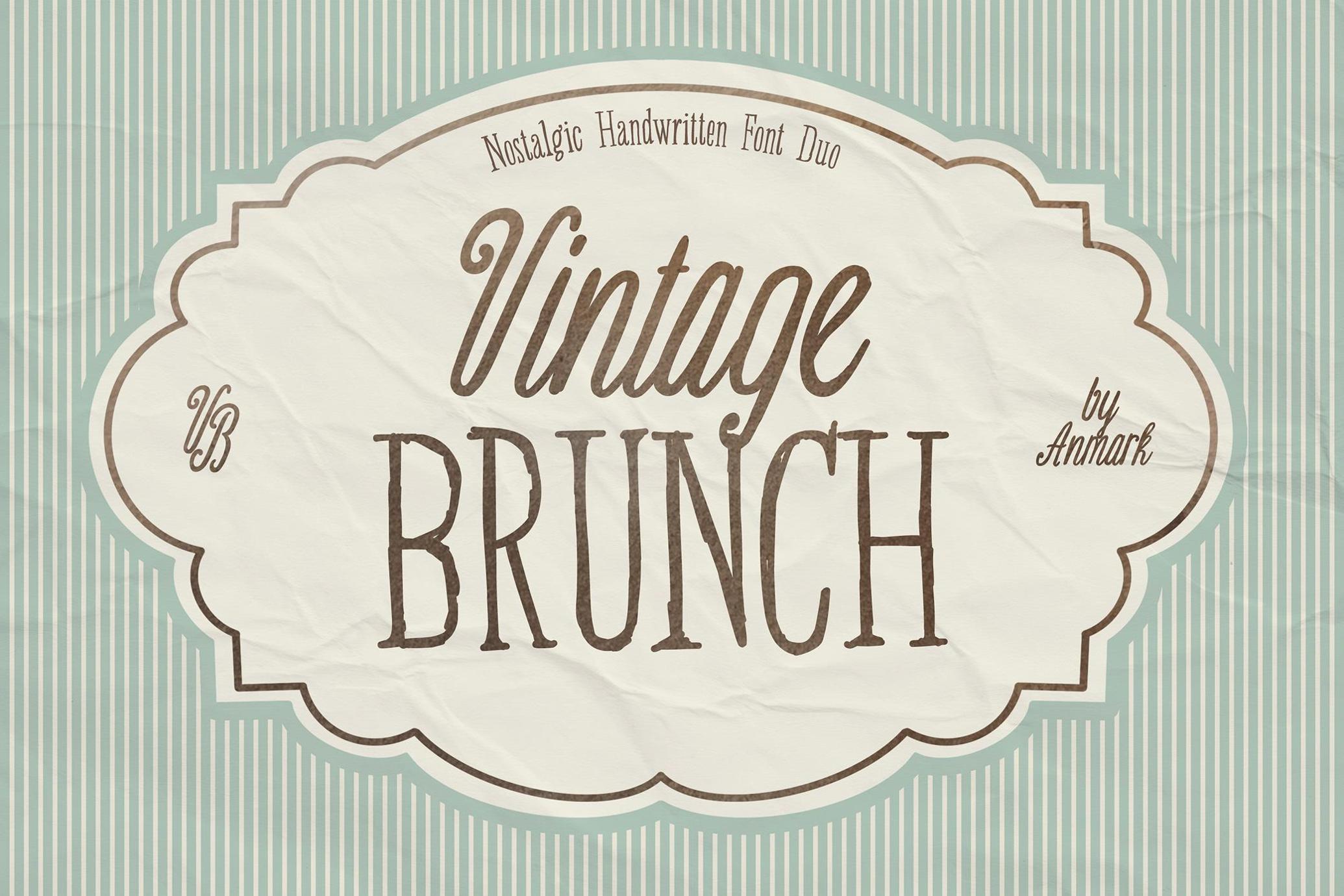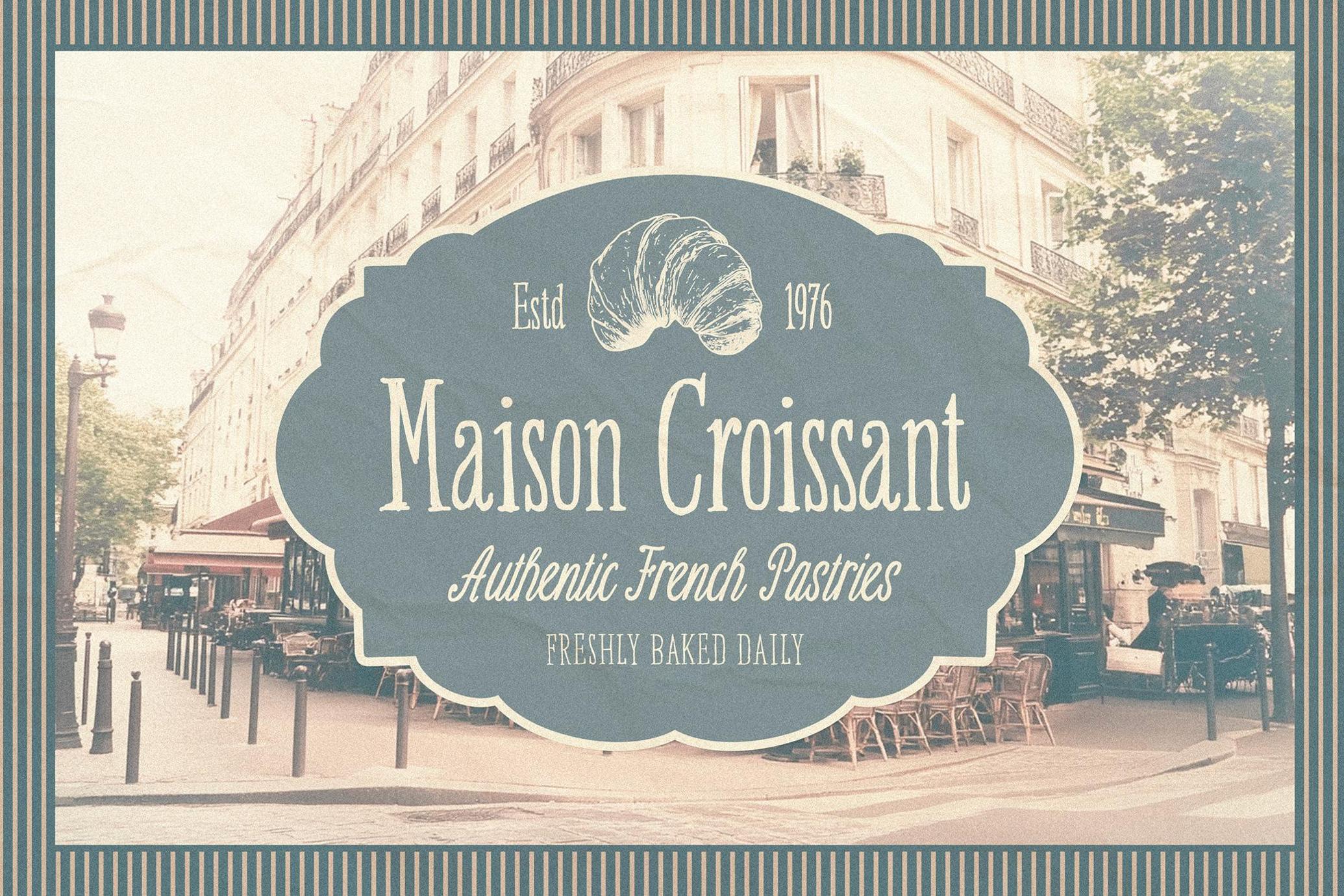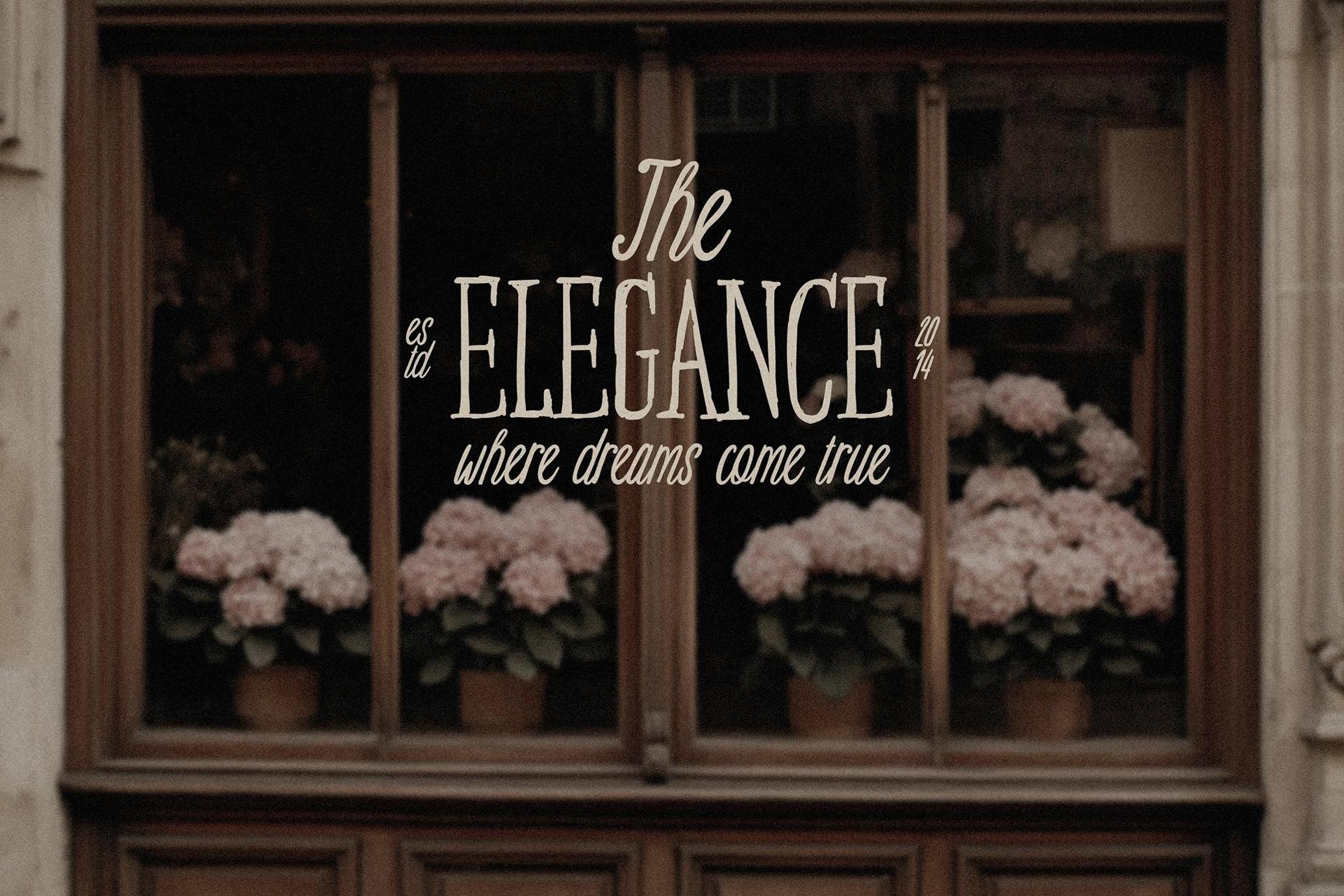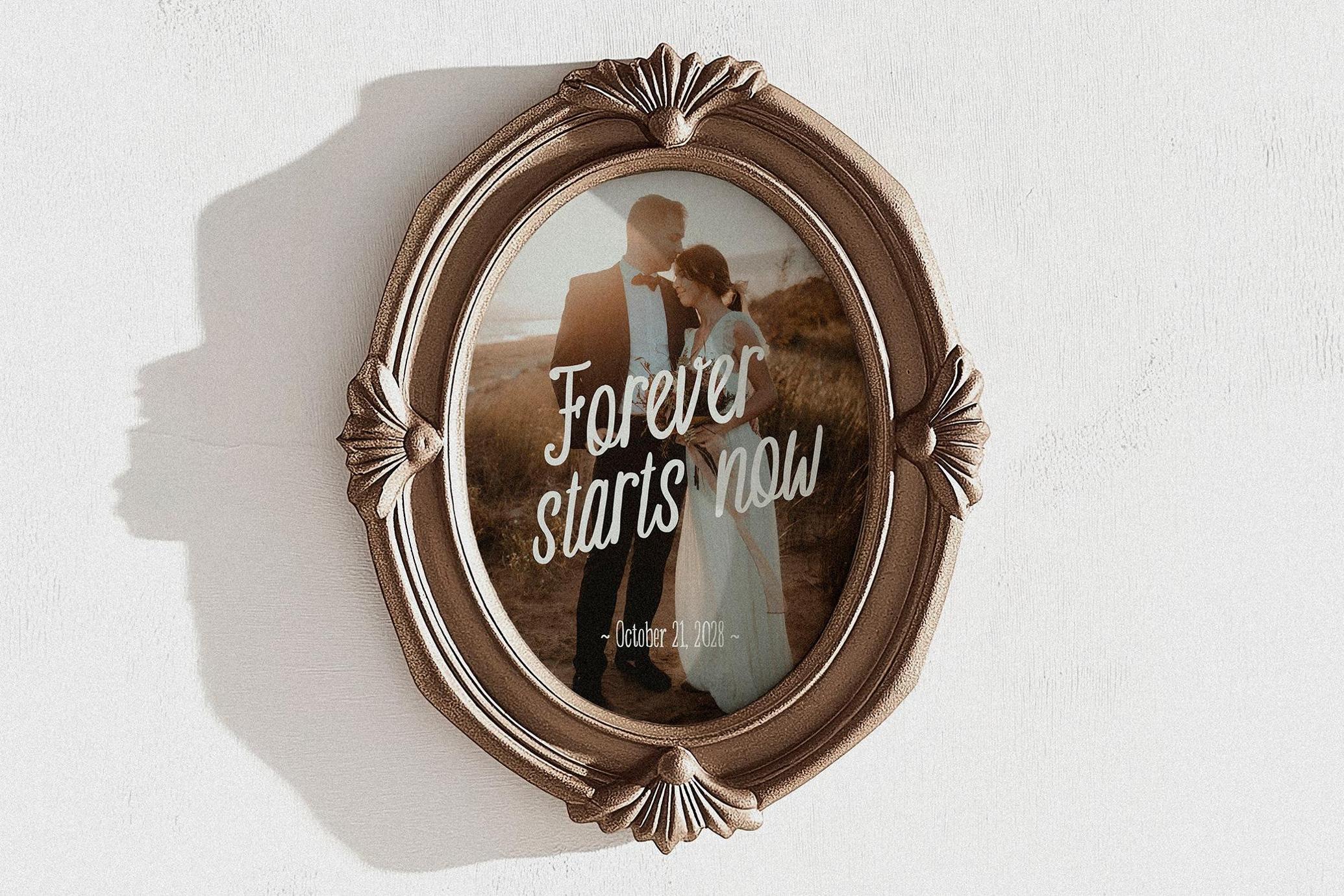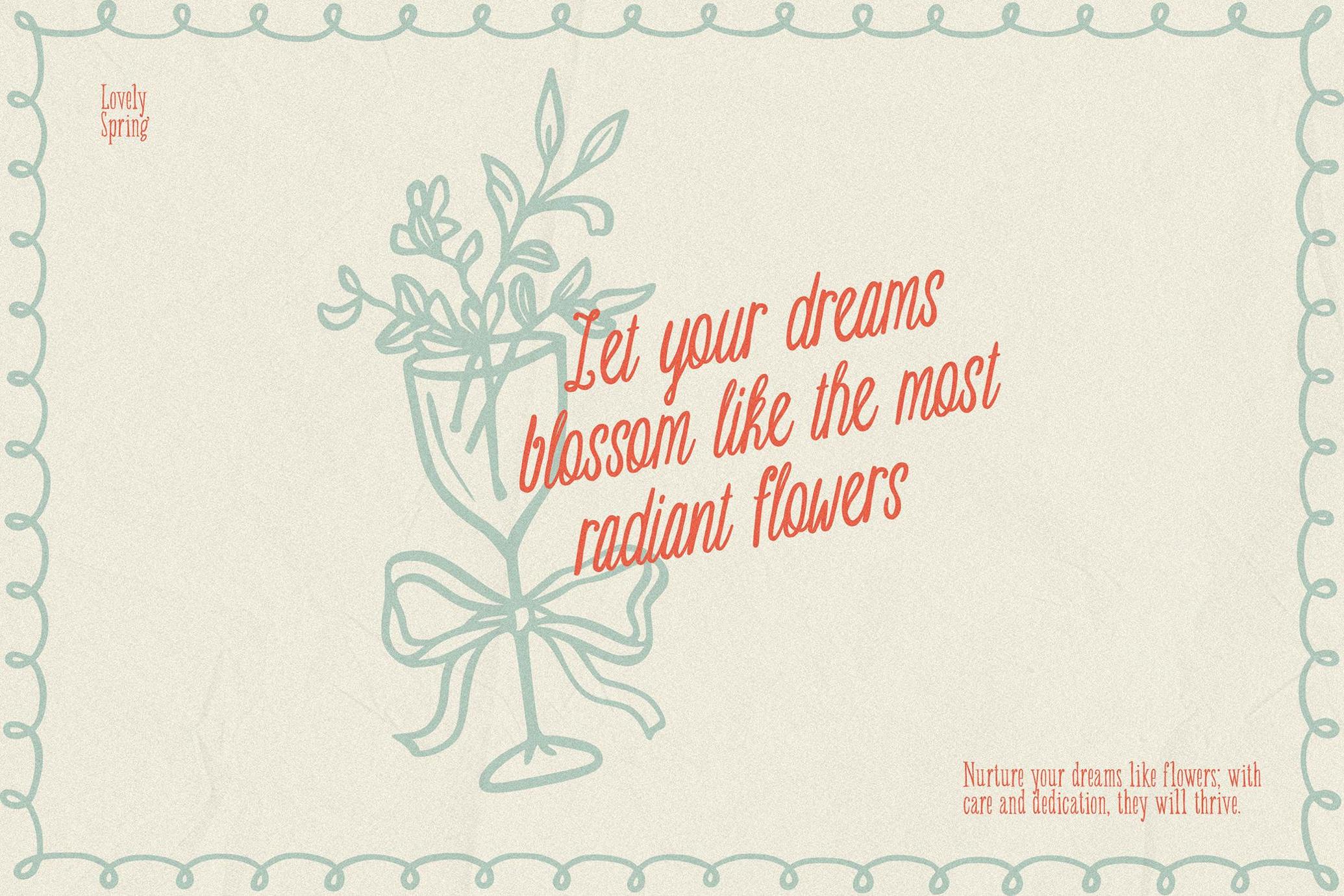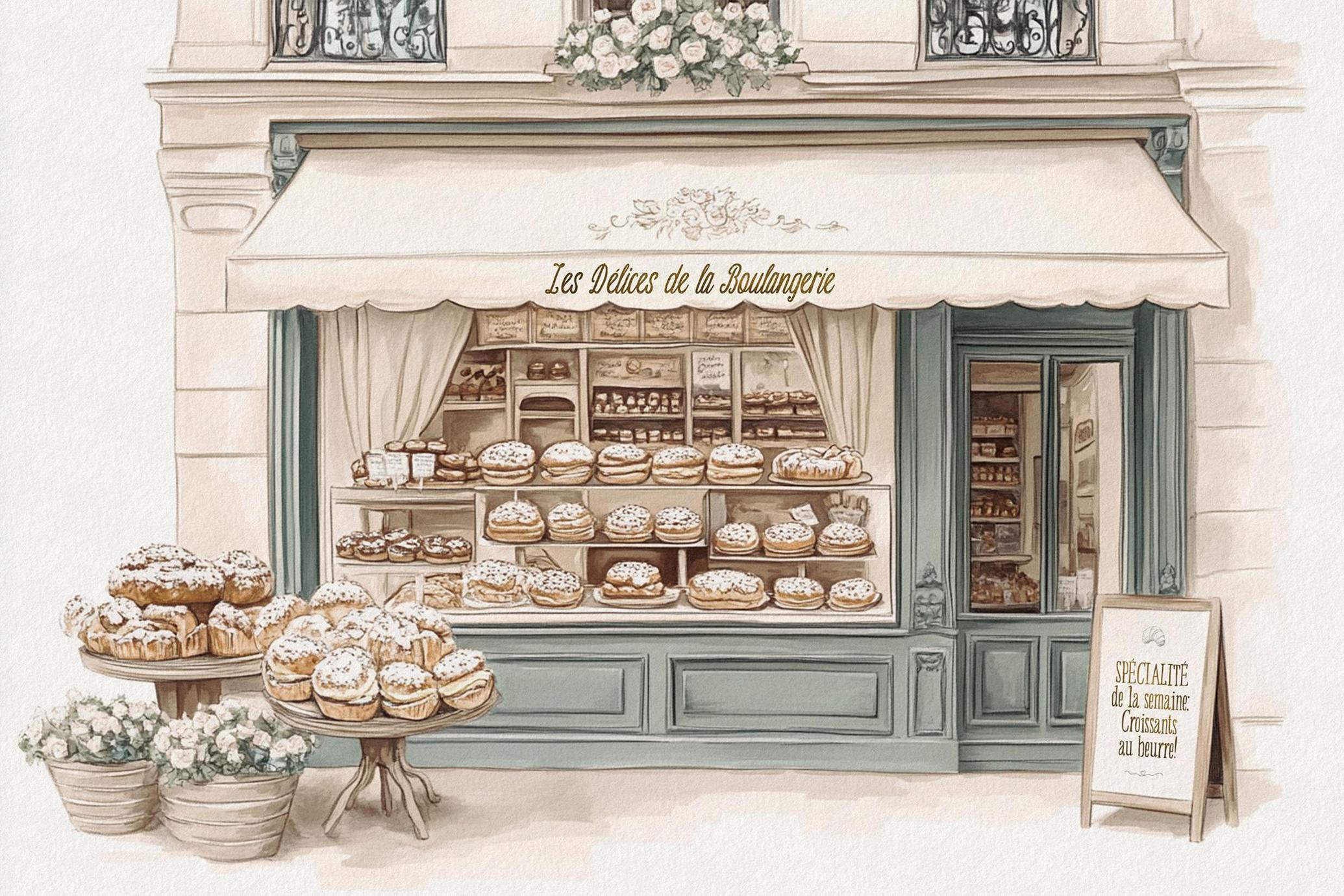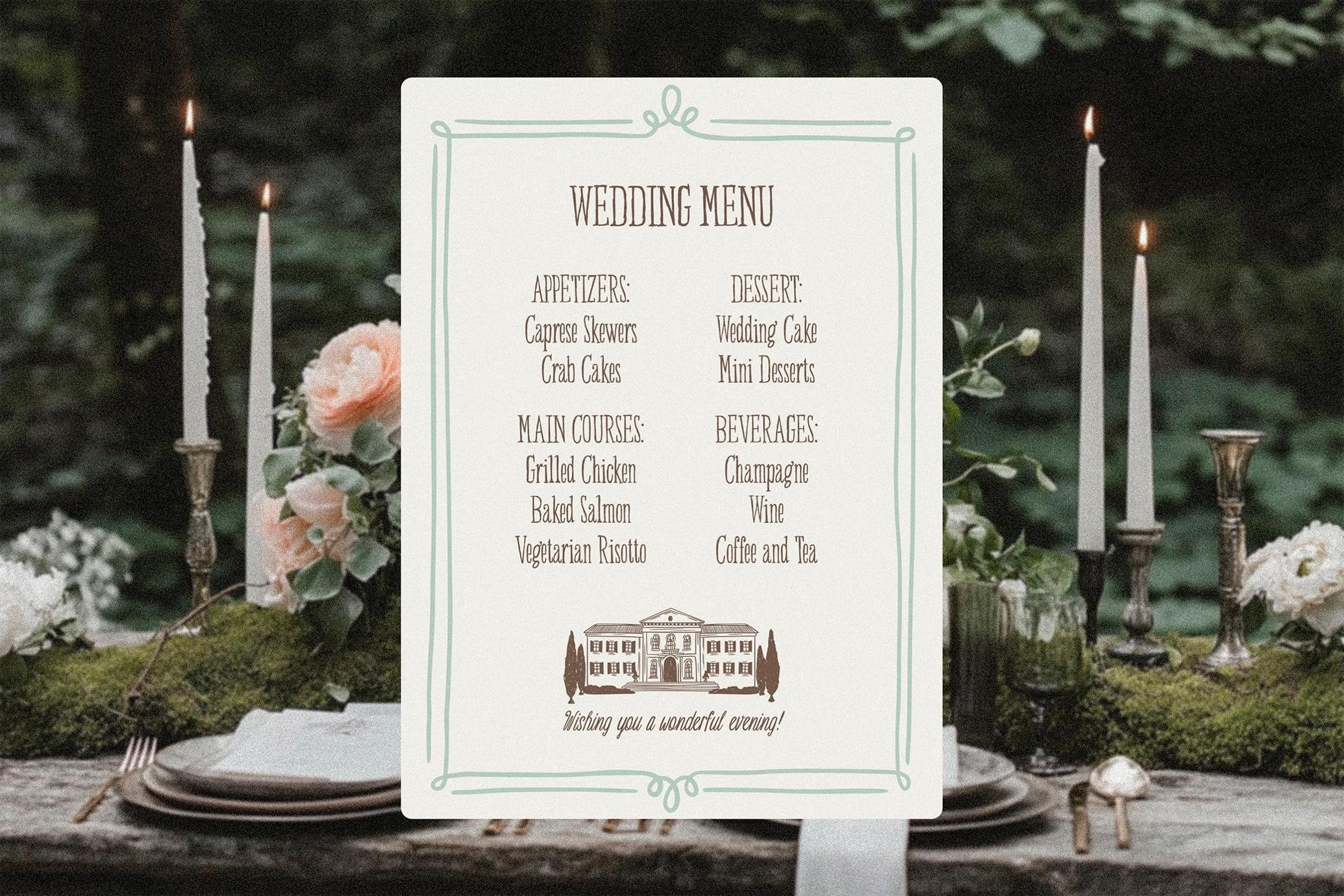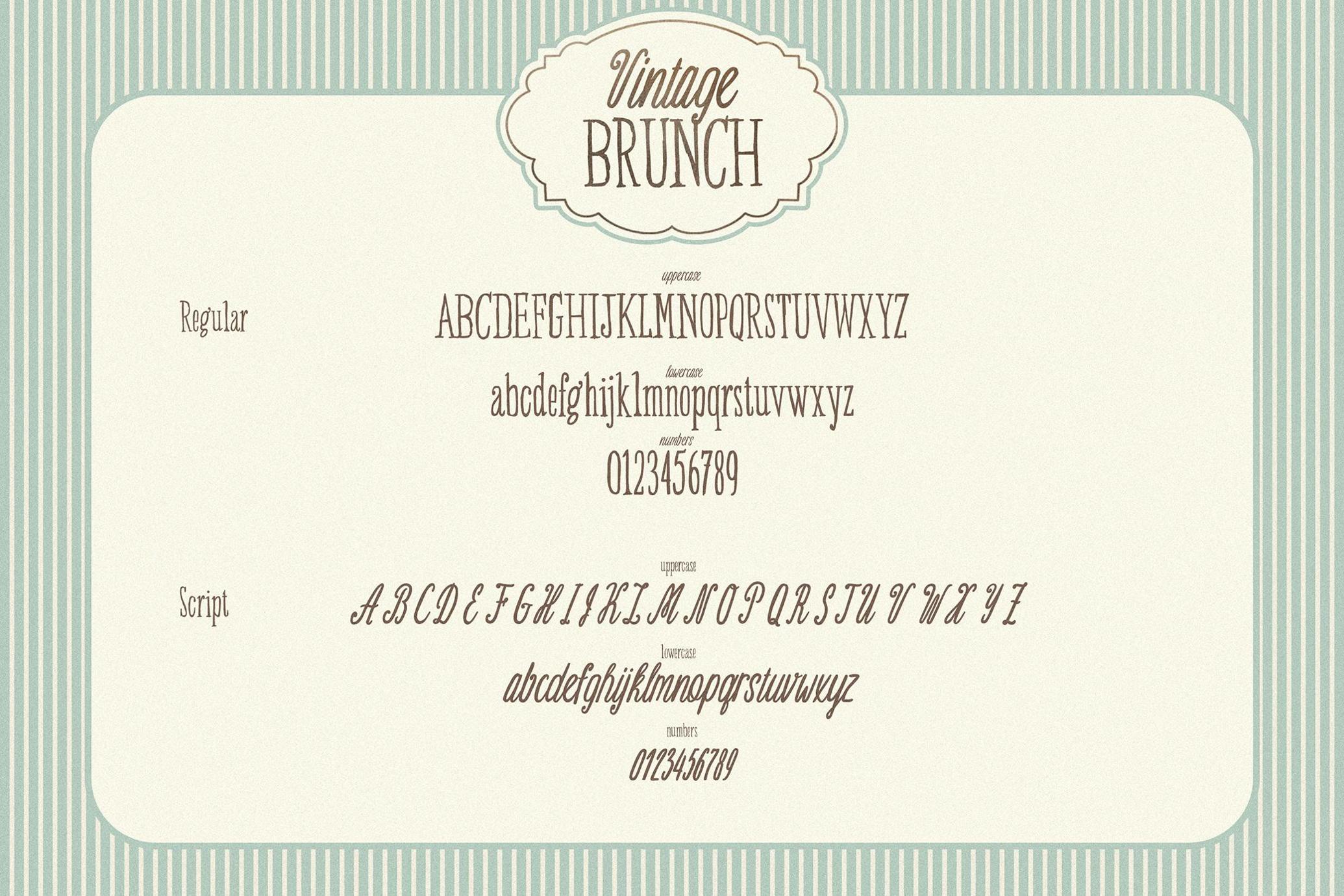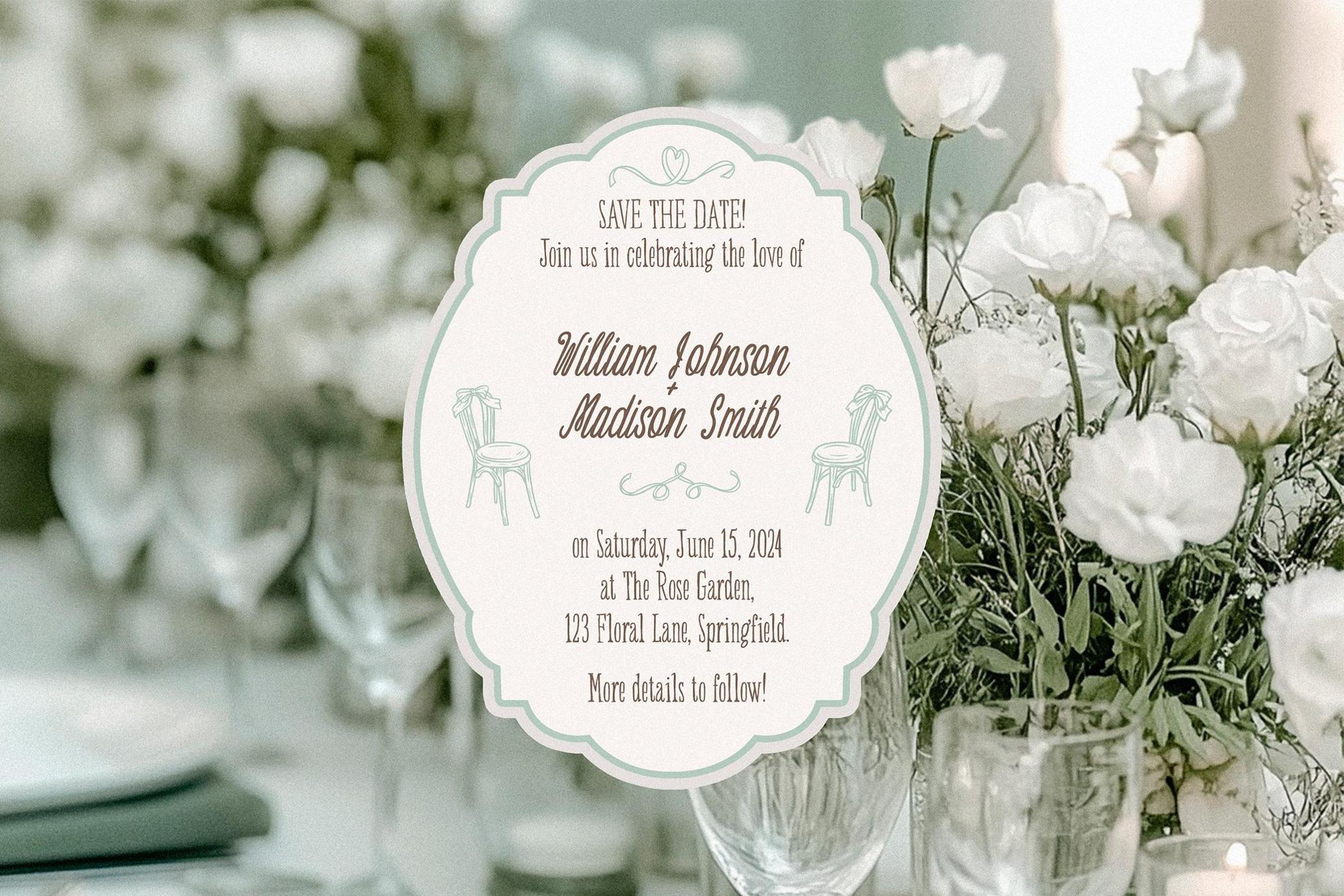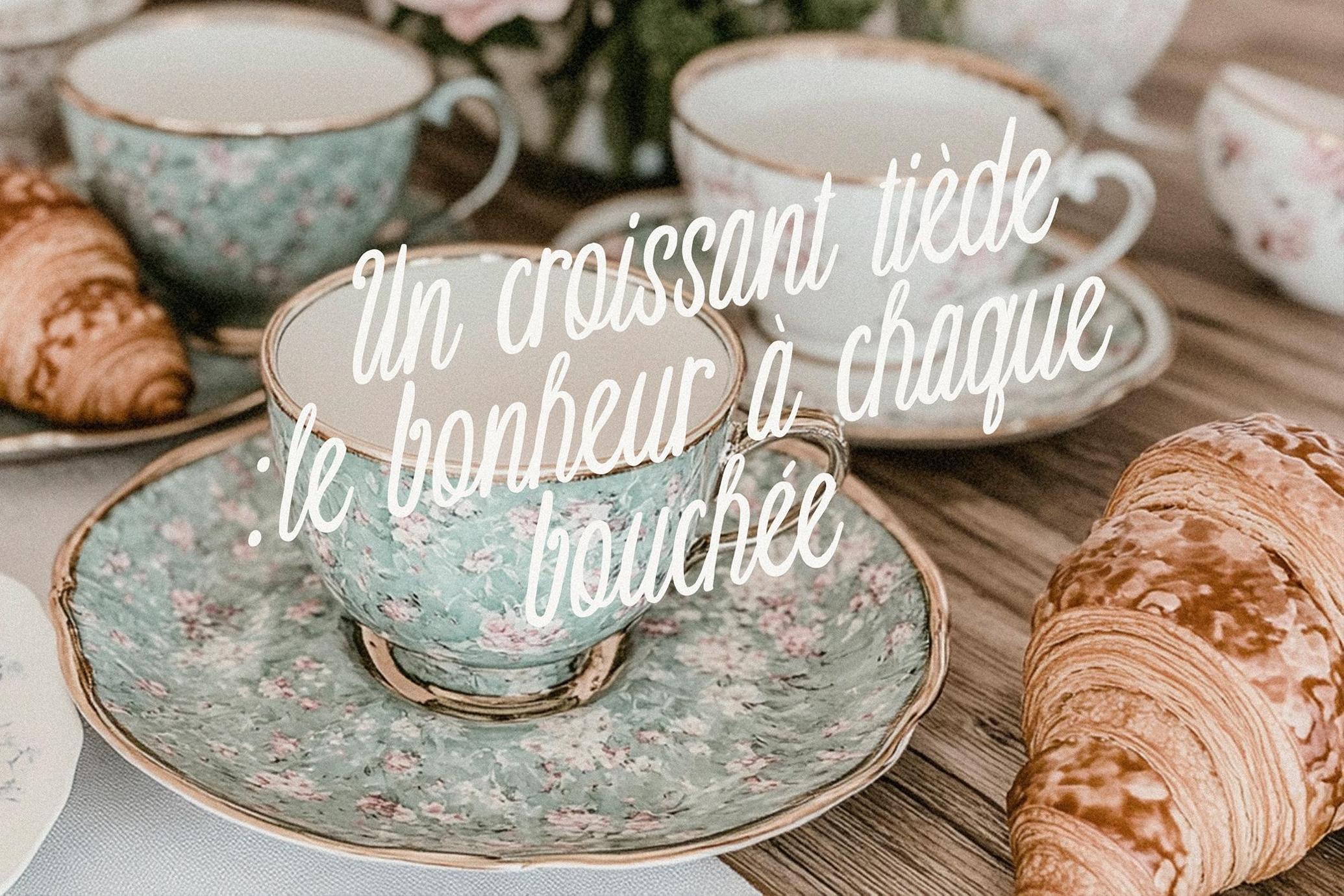
Vintage Brunch: Retro Font Duo
Vintage Brunch is a handwritten font duo that leans into early-to-mid 20th-century visual cues — specifically drawing from the 1920s to 1940s. The serif style echoes vintage French storefront signage and hand-lettered packaging from interwar Europe, with narrow letterforms, tall x-heights, and subtle quirks that mimic signwriter imperfections. The script counterpart softens the overall tone with fluid, slanted strokes that recall calligraphy on wedding stationery, menus, and boutique branding from the same period.
Visually, it captures the charm of a Parisian pâtisserie or a linen-paper menu. The serif font feels tailored for identity design, editorial titling, and anything with an old-world sensibility. The script font balances it with movement and intimacy, ideal for subheadings, taglines, and accents.
The set includes uppercase and lowercase characters in both styles, numerals, punctuation, and full multilingual support across extended Latin languages.